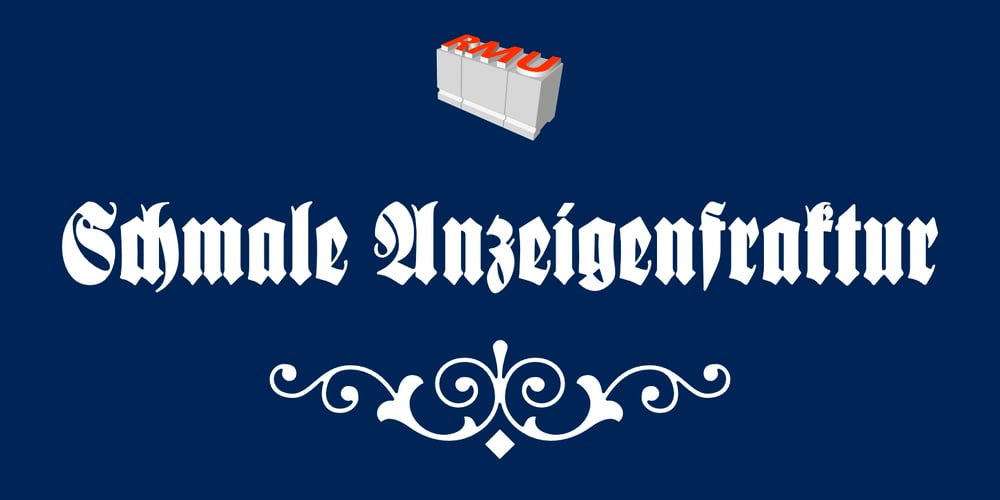
Schmale Anzeigenfraktur Font Family was designed by Rudolf Koch, Ralph M. Unger and published by RMU. Schmale Anzeigenfraktur contains 1 styles and family package options. The idea of creating this font is based on Koch’s Schmale Deutsche Anzeigenschrift which was released in 1923 by Klingspor in Offenbach, Germany. This font was entirely redrawn and completed with the help of a few basic letters and the numerals.